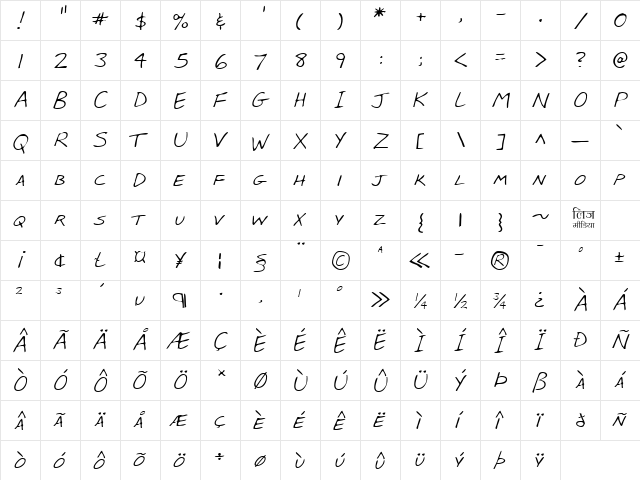
LEHN023 Regular
Design Context for LEHN023 Typeface
LEHN023 is a composed and adaptable typeface that performs quietly and consistently across a wide range of design contexts.